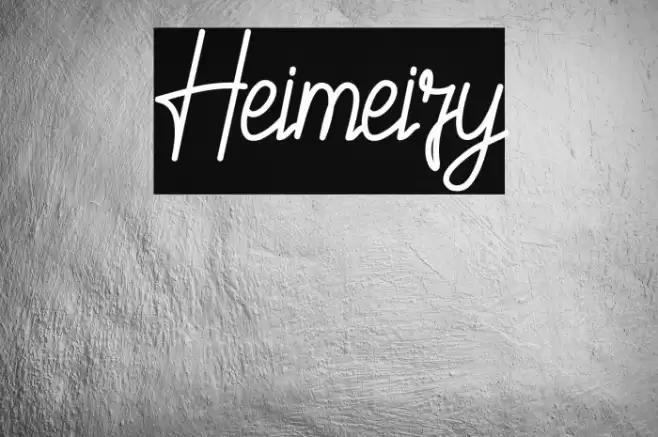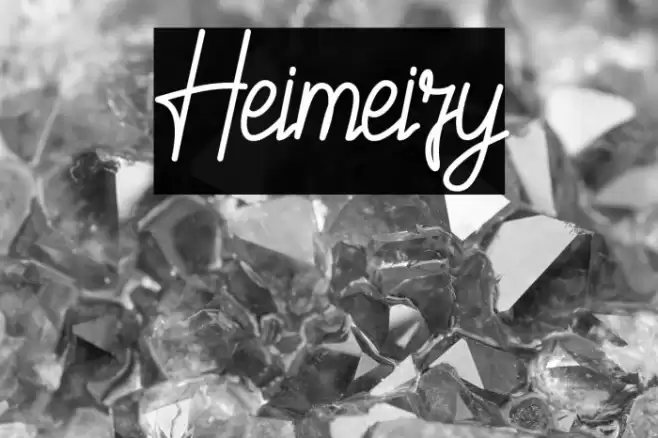
Heimeiry Font
Heimeiry Description
This font features a lively and dynamic script style with a handwritten appearance. The letters are interconnected, creating a fluid and continuous flow that mimics natural handwriting. The uppercase letters are tall and slender, while the lowercase letters maintain a consistent height, enhancing readability. The numbers and special characters are designed to match the overall style, with a playful yet elegant touch. The strokes are smooth and slightly varied in thickness, adding a sense of movement and personality to the text.
A lively, handwritten script font with fluid, interconnected letters from Regular fonts.
- Proposed Projects: Ideal for invitations, greeting cards, personal branding, and creative projects that require a personal touch.
- Use Case: Logos, Invitations, Greeting Cards